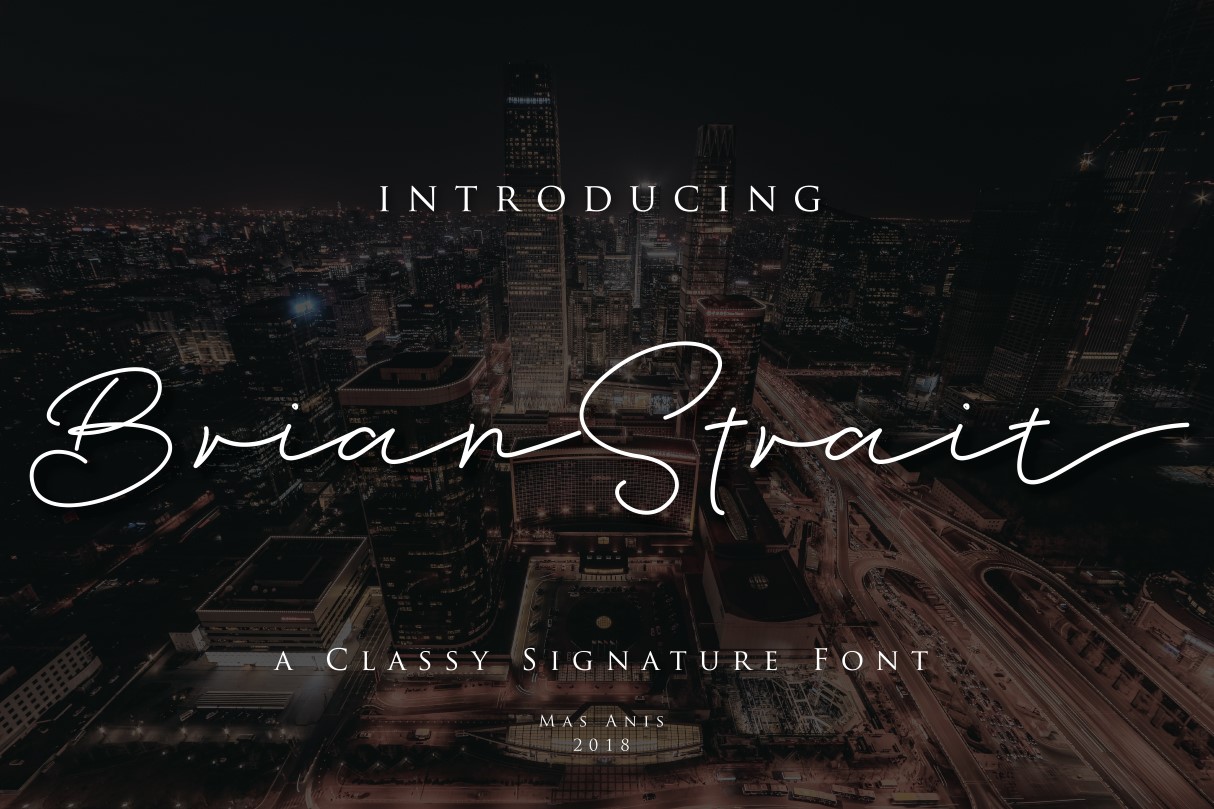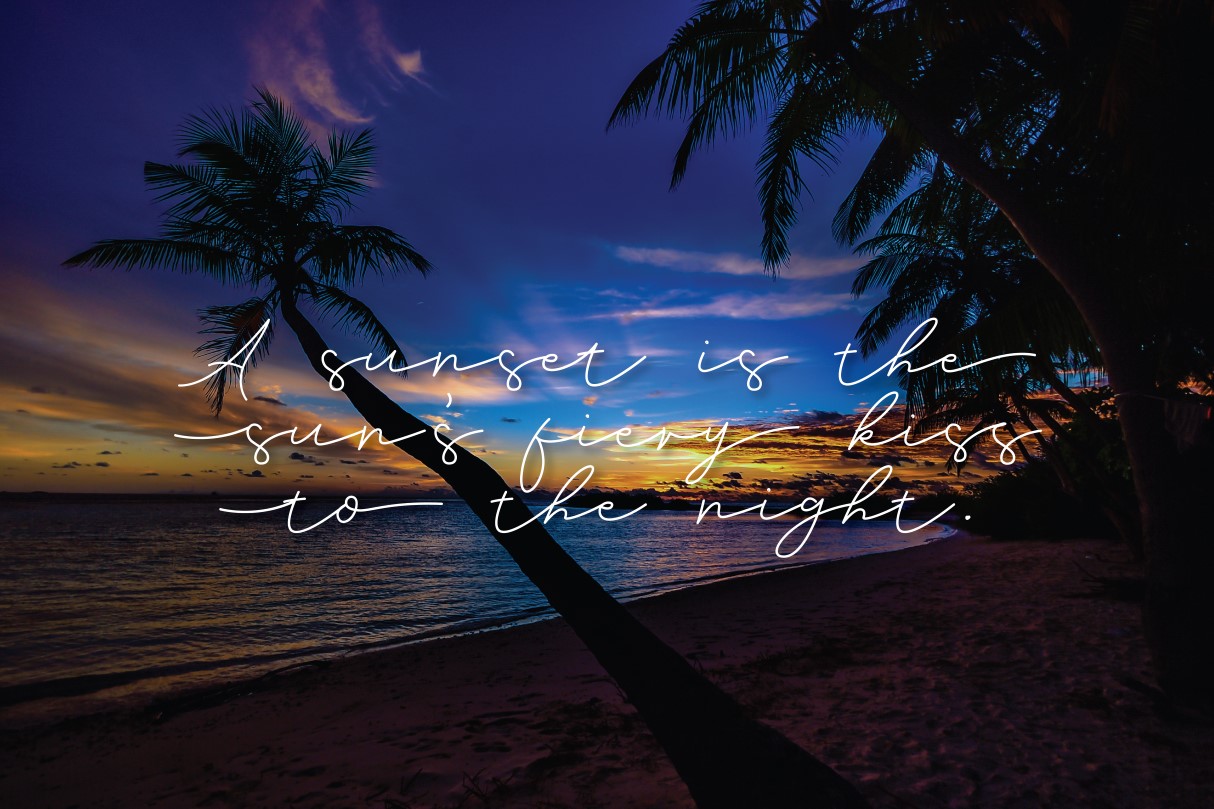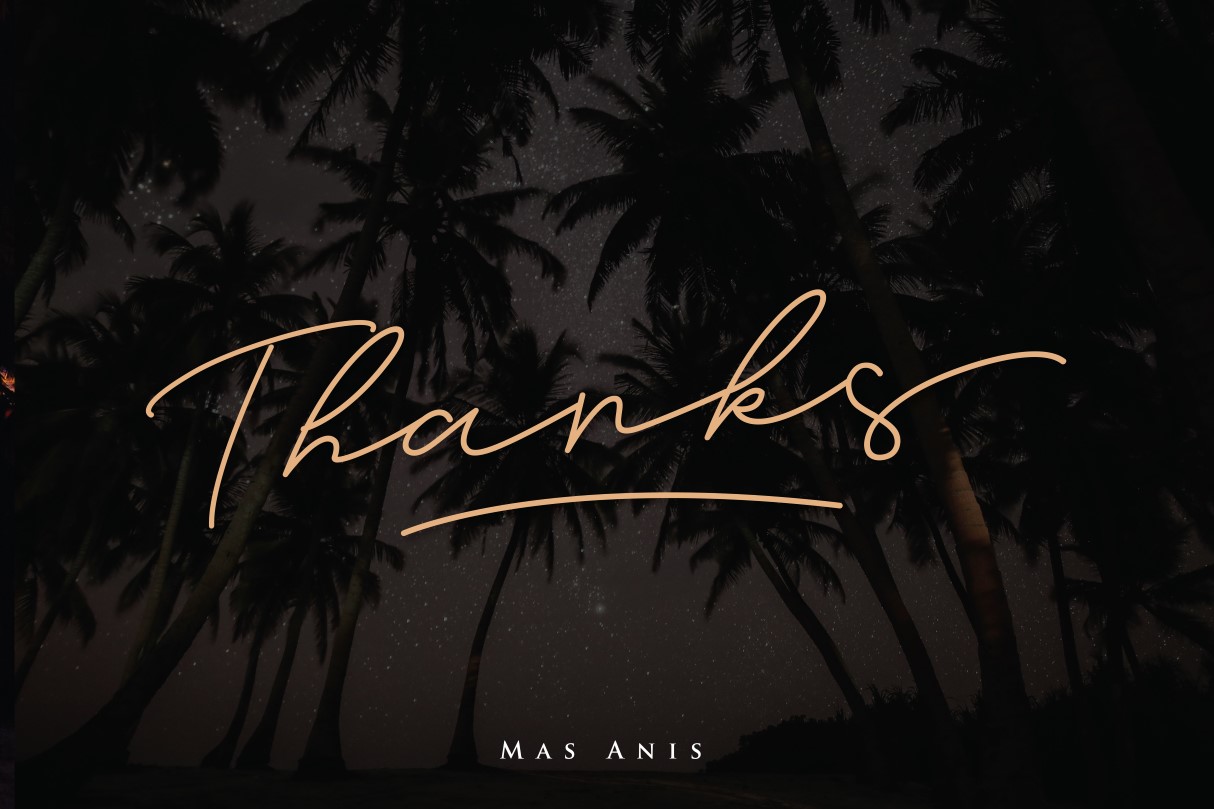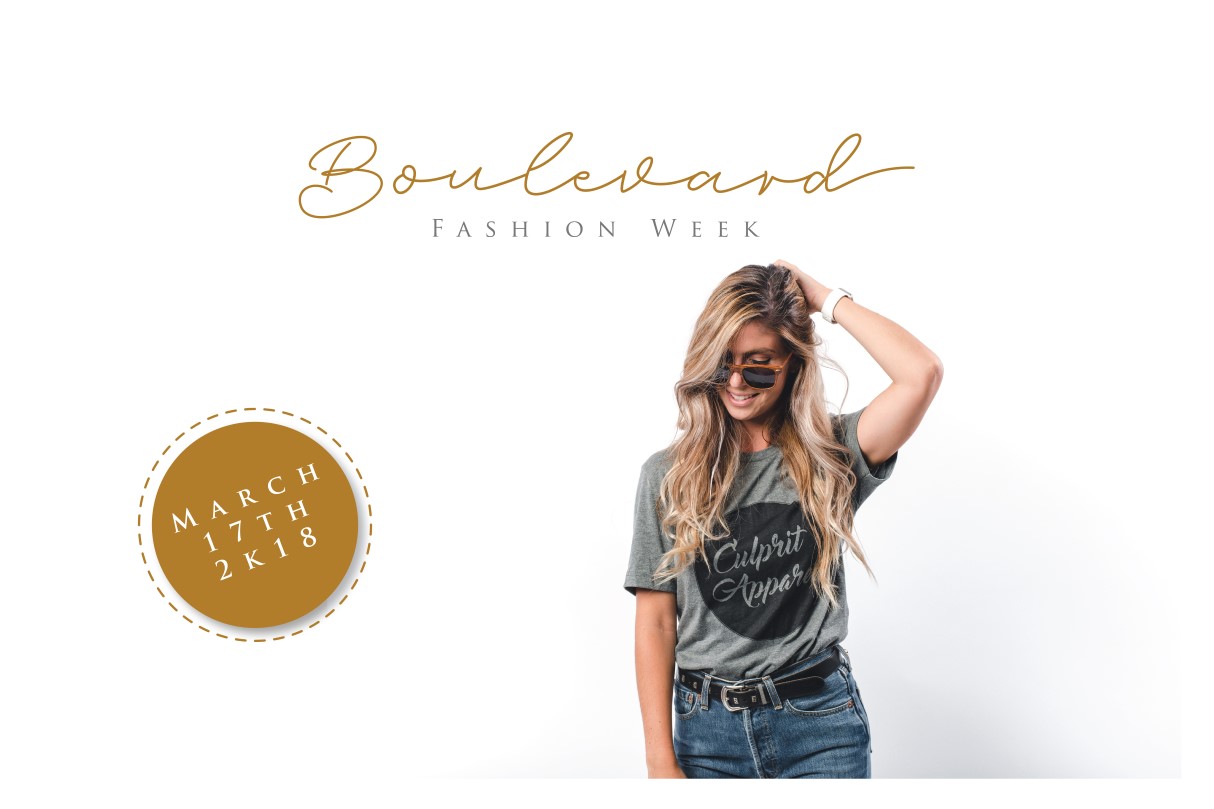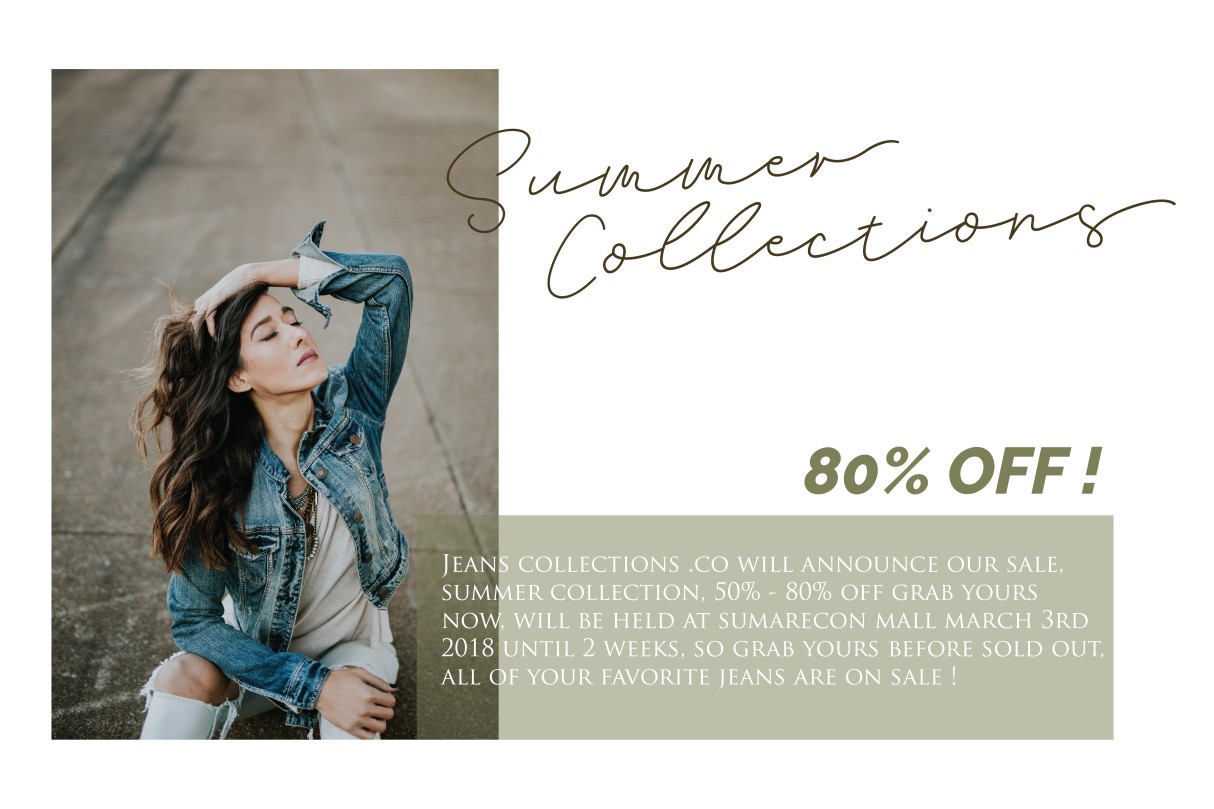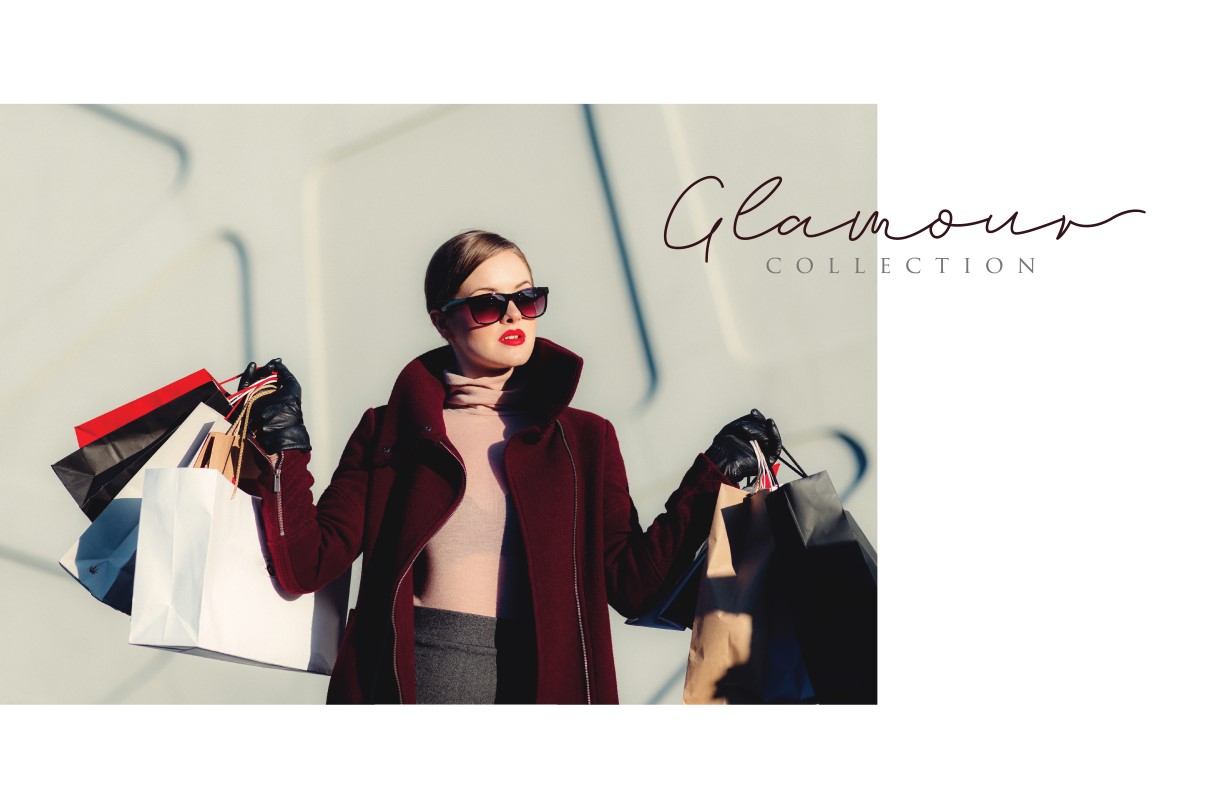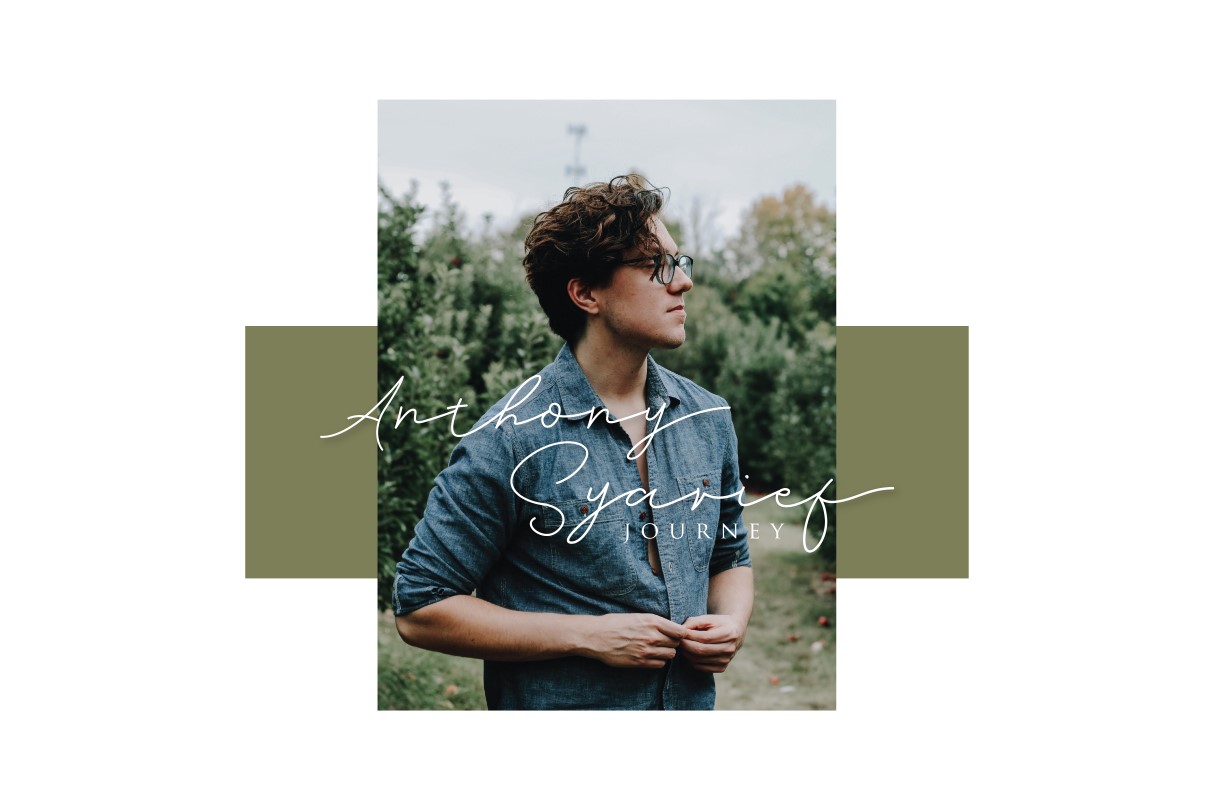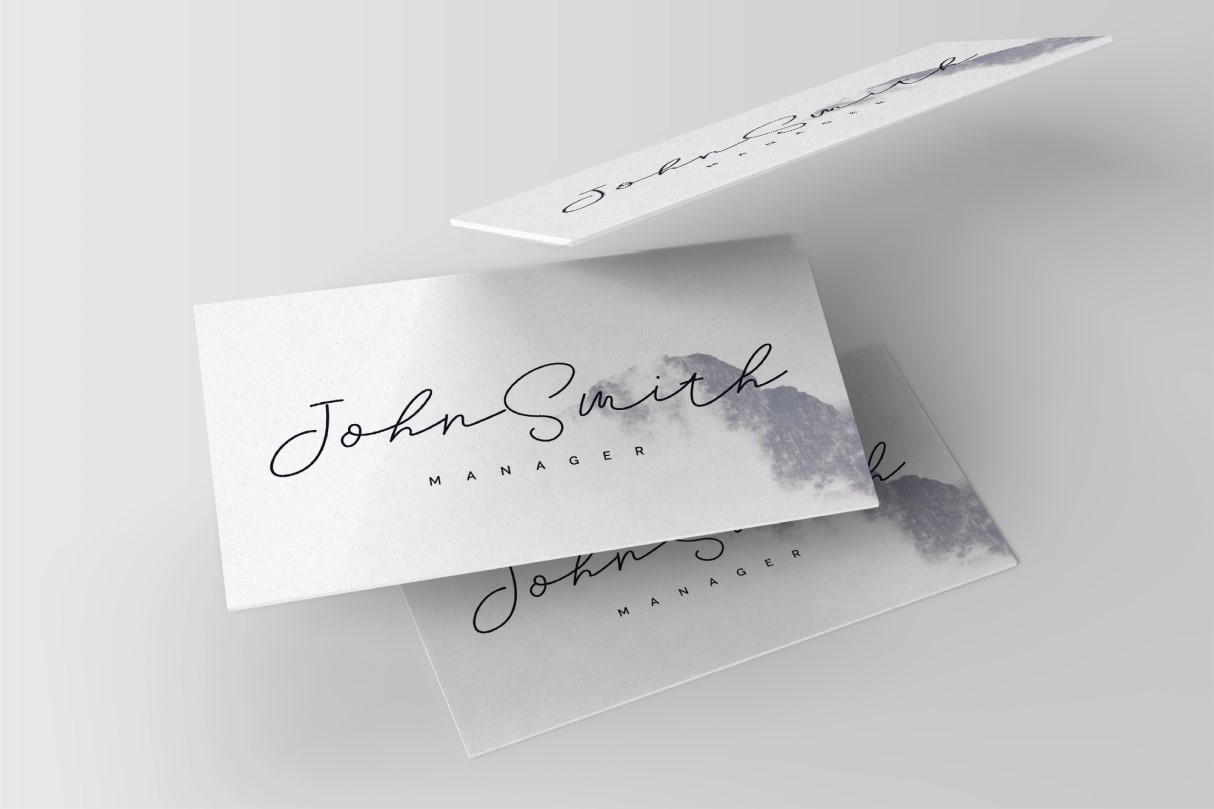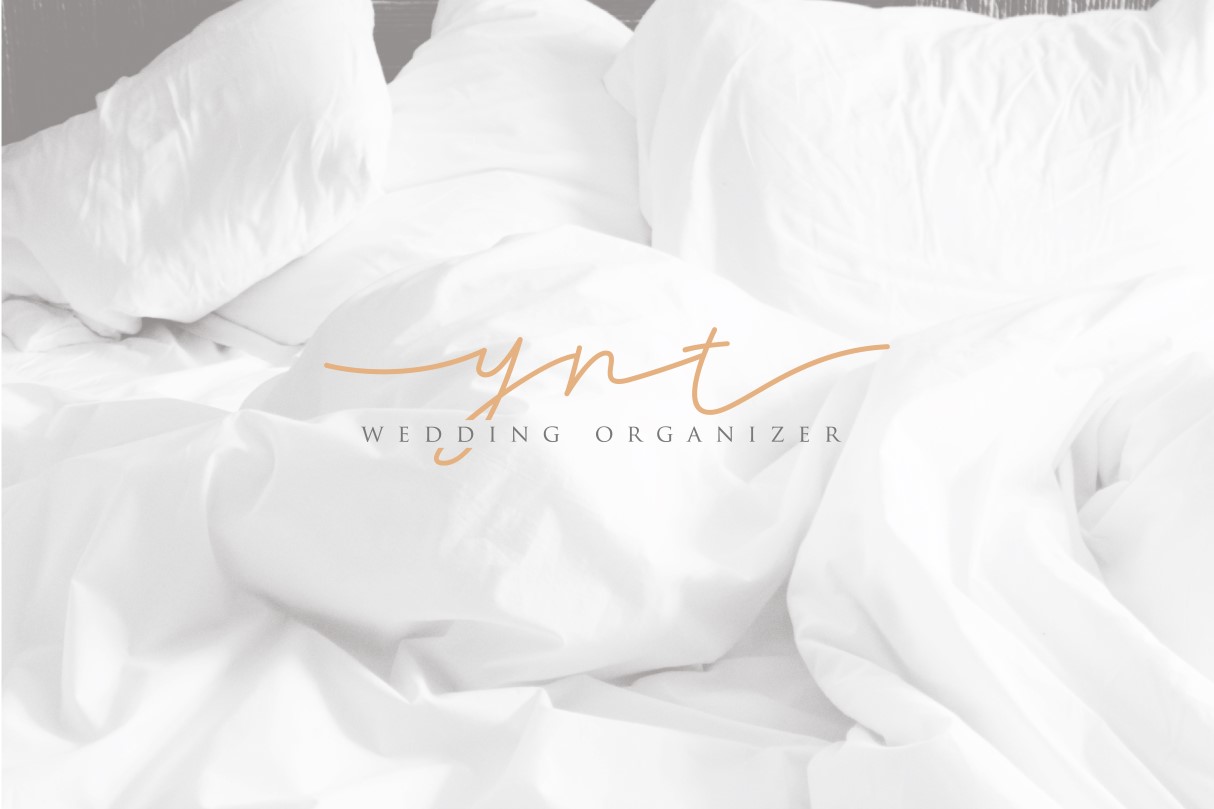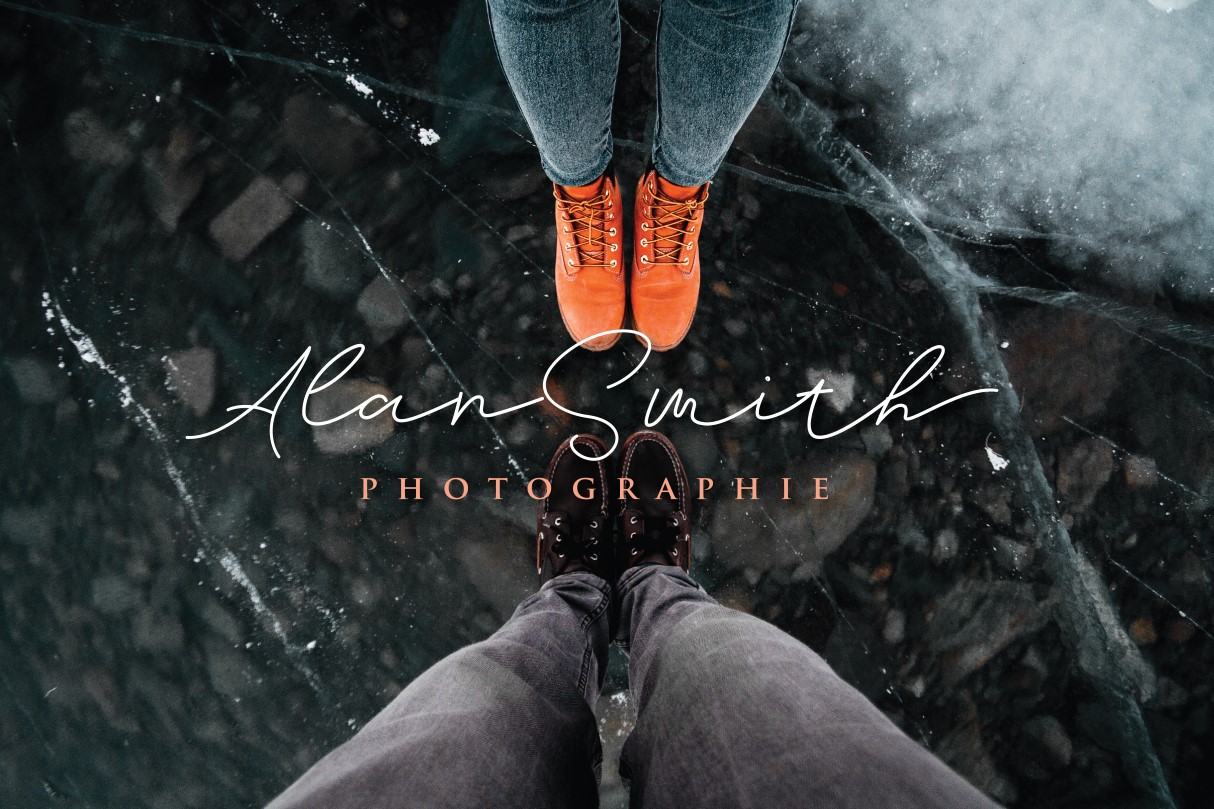
Brian Strait Font
About Brian Strait Font
Brian Strait was crafted to make your work look more amazing–this simple and classy font is perfect for adding a signature touch to your creative projects. This font is elegant, classy and stylish–but most important of all, it’s eye-catching.